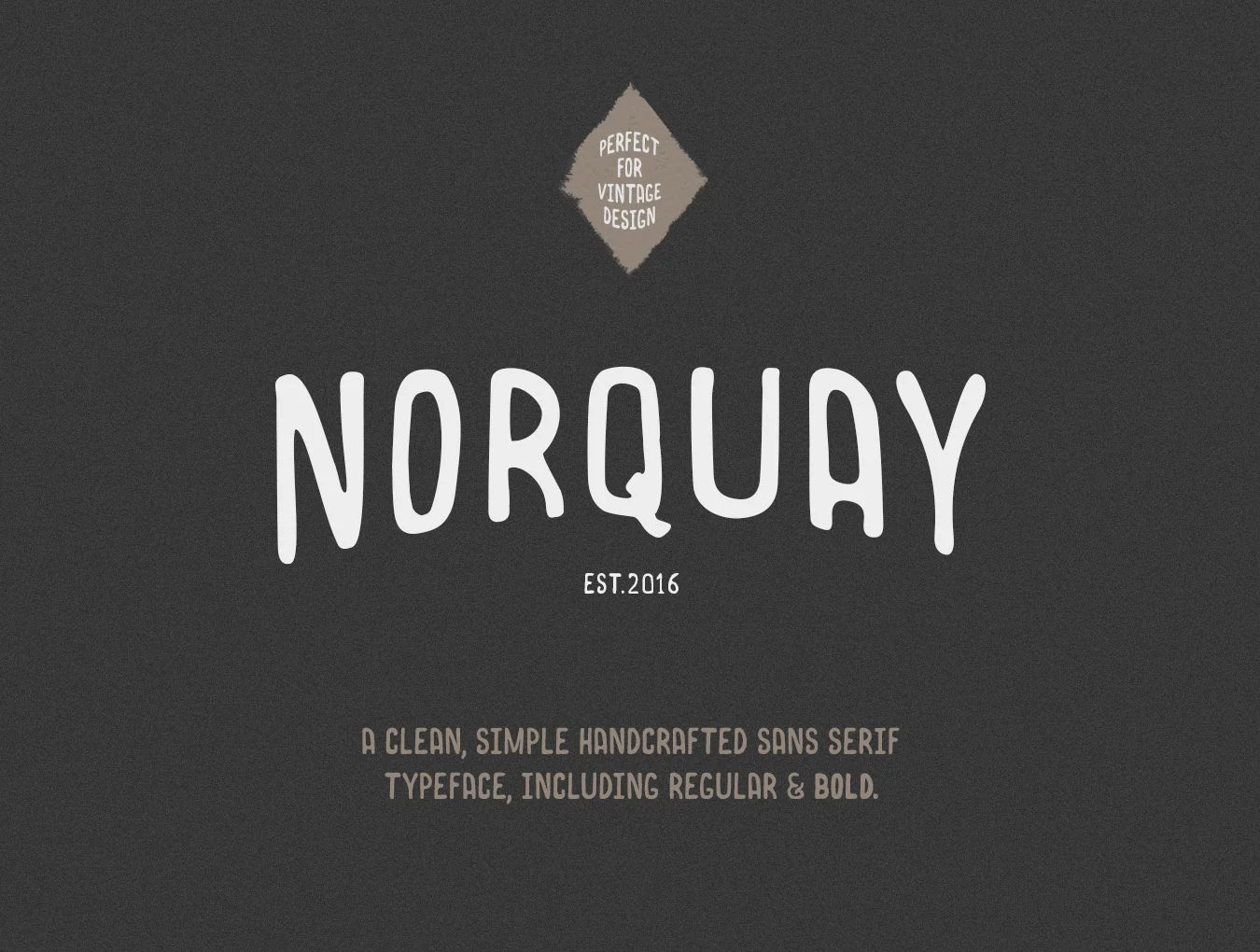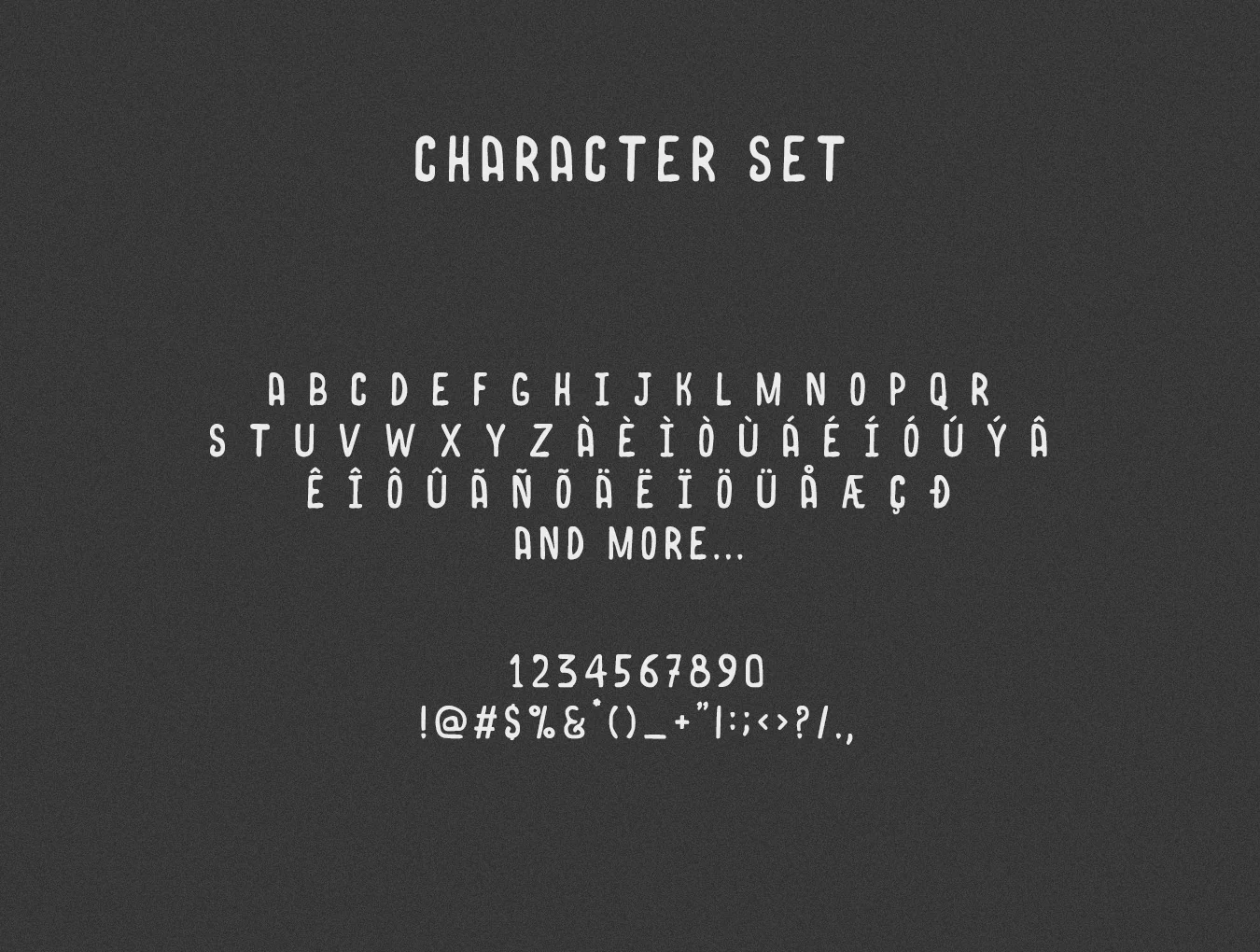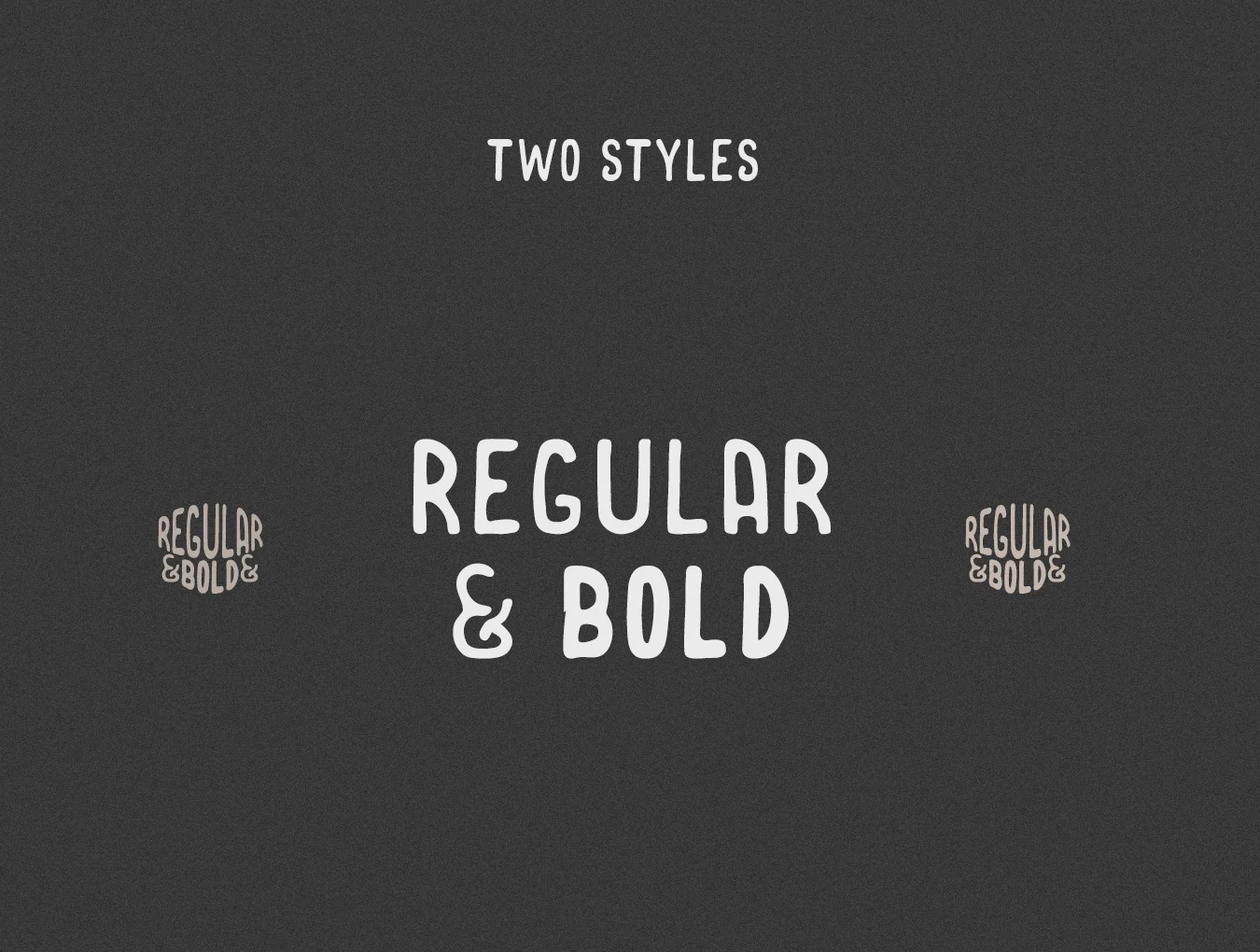
Norquay
Retro handmade sans serif typeface with a hand-drawn feel
A retro handmade sans serif typeface with Regular and Bold styles, ideal for hand-drawn logos and brand designs.